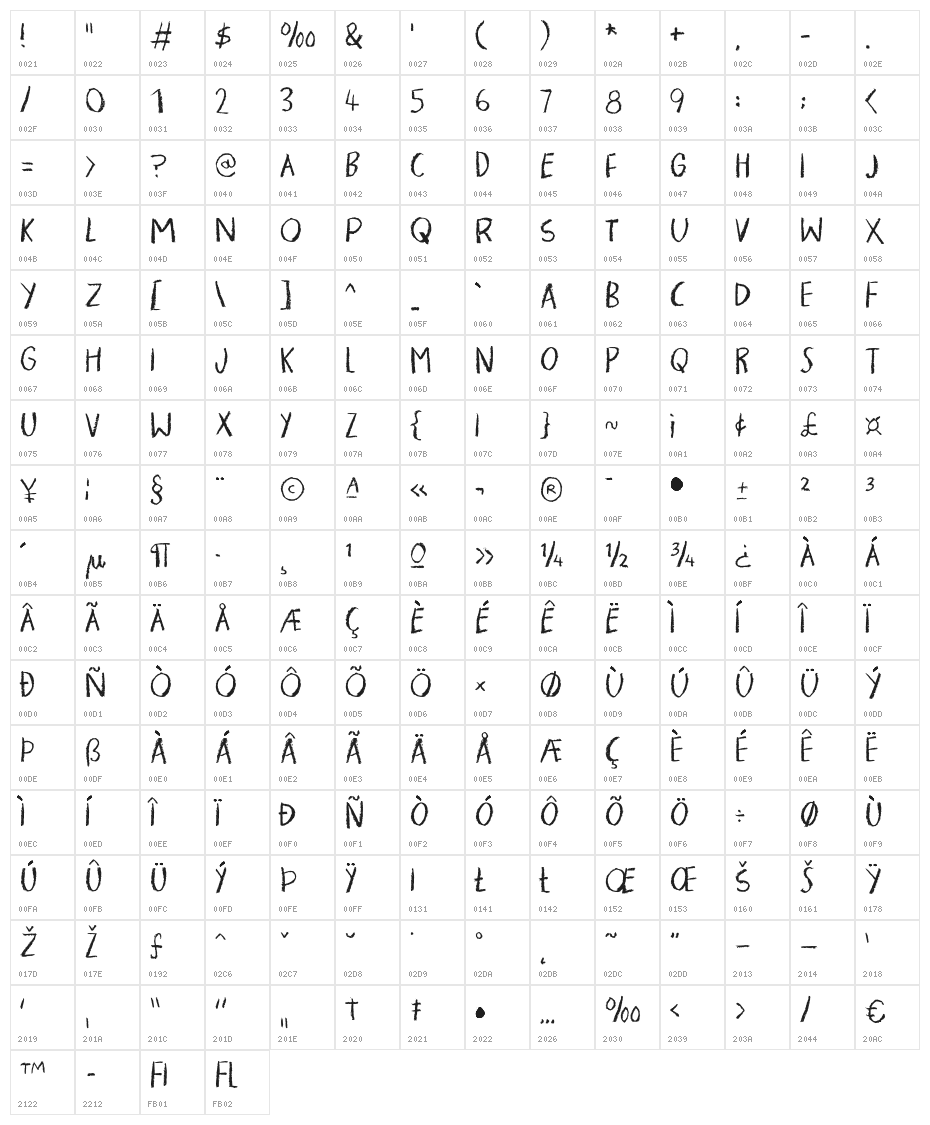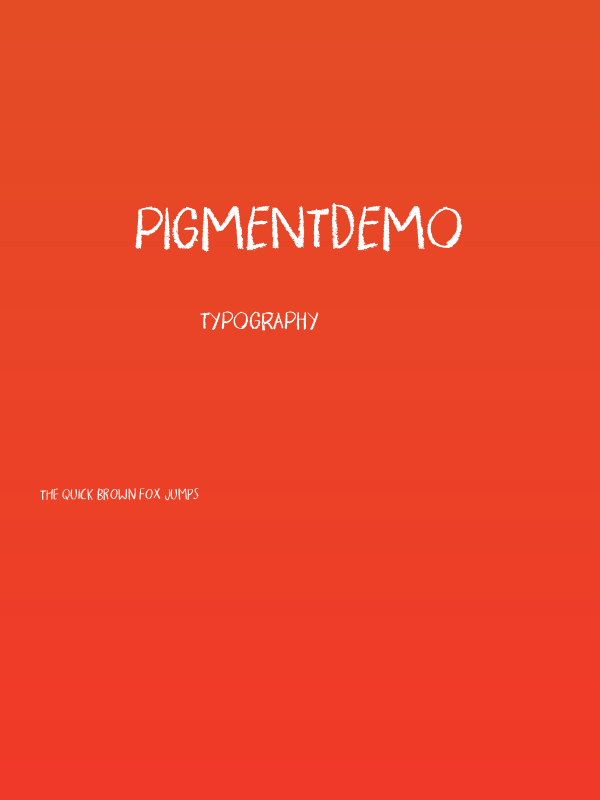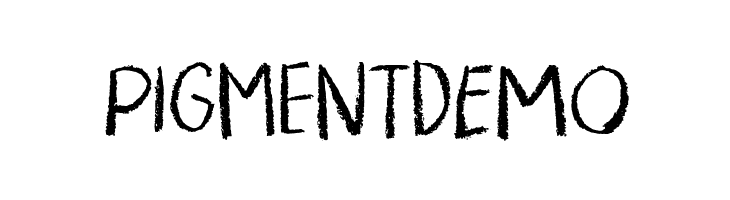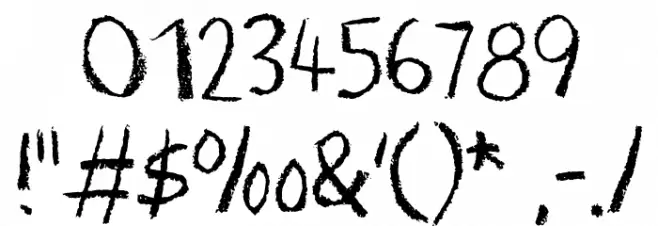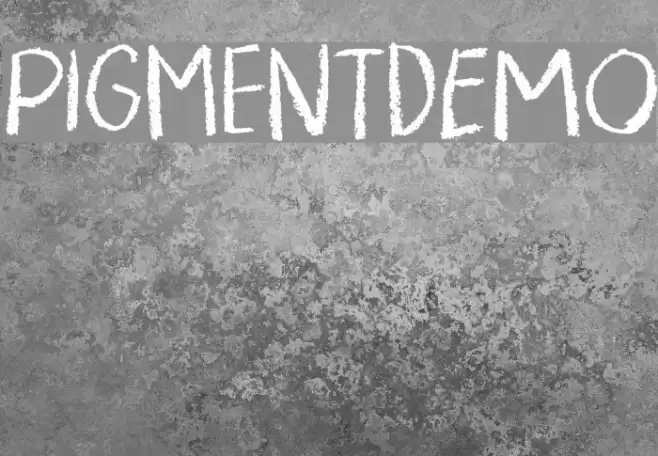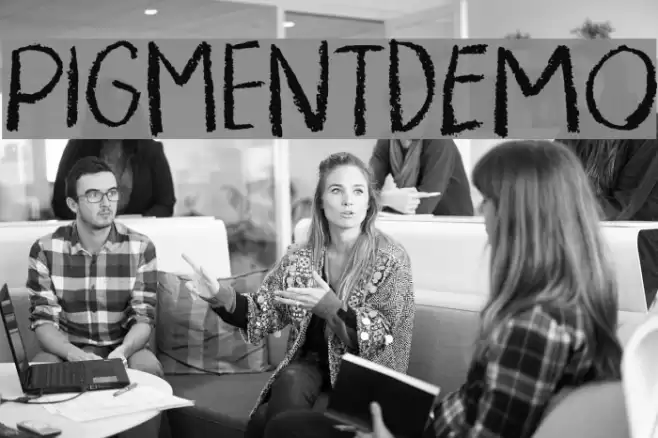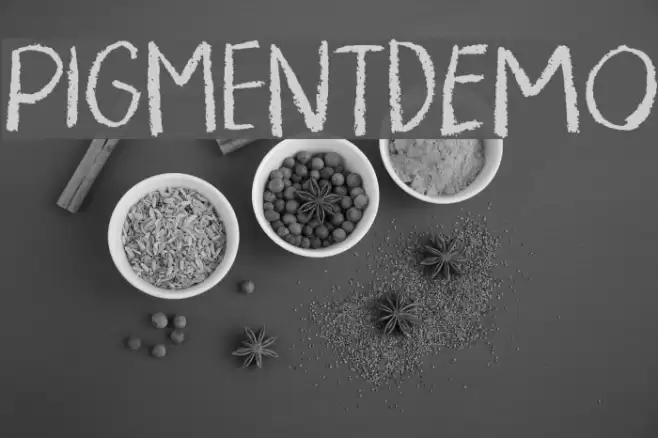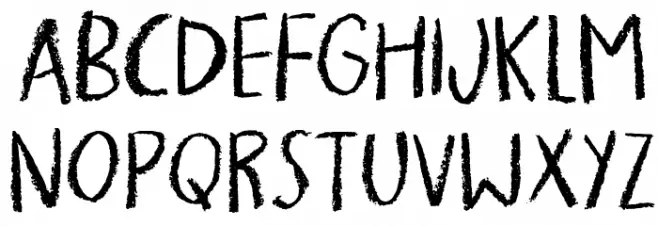
PigmentDEMO Font
| Gesamtstil | Artistic, Handcrafted |
| Anwendungsfall | Headlines, Creative projects, Informal branding |
| Vorgeschlagene Projekte | Ideal for art projects, children's book illustrations, creative posters, and informal branding. |